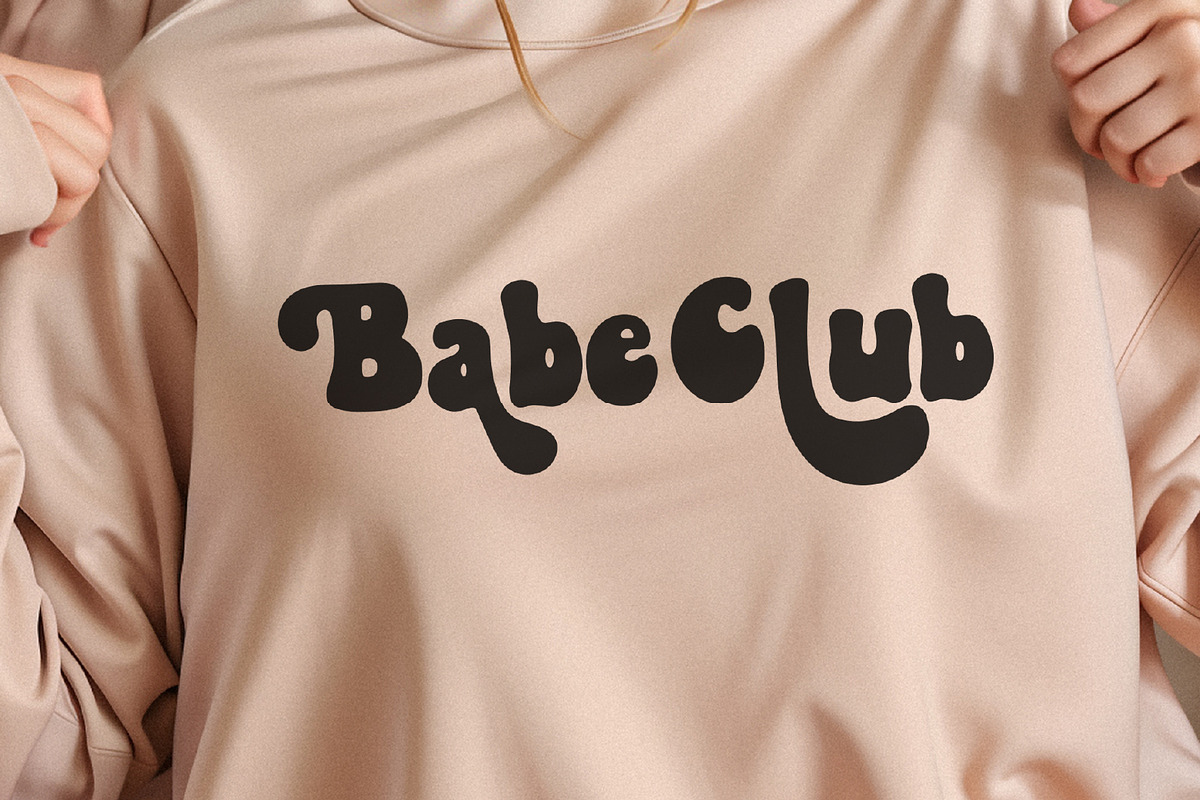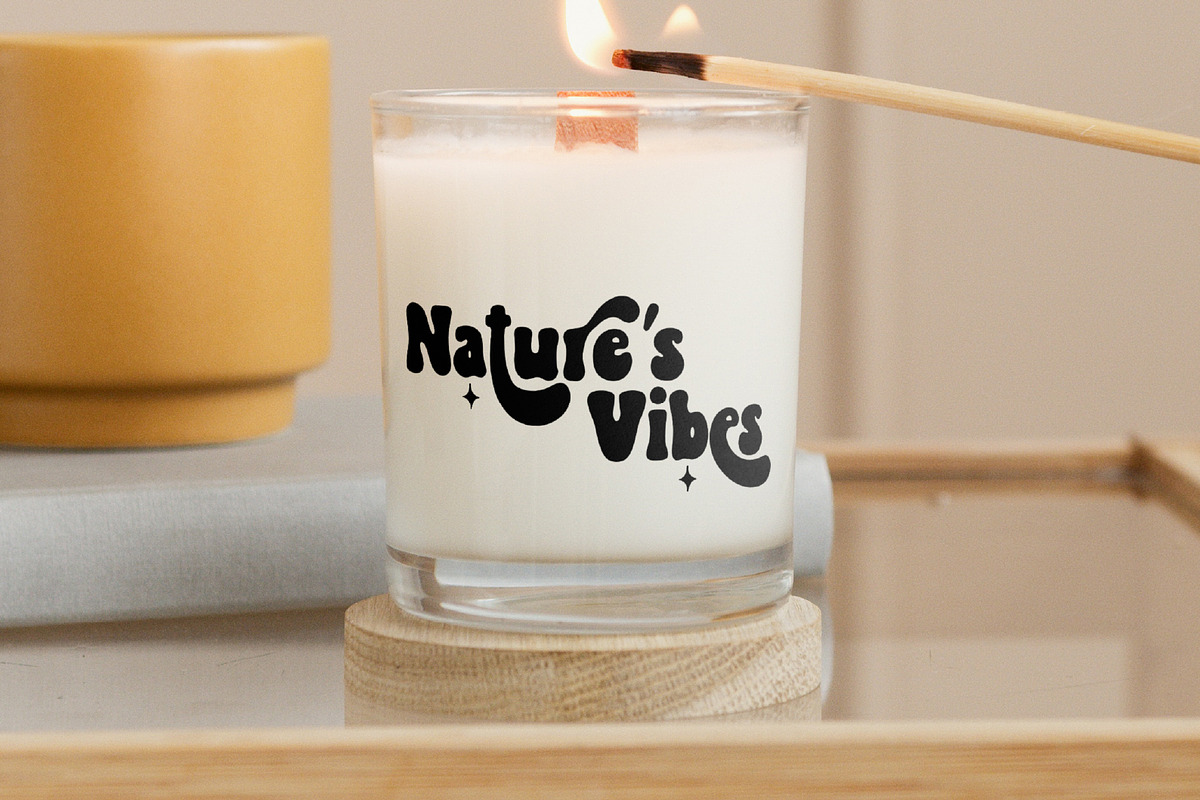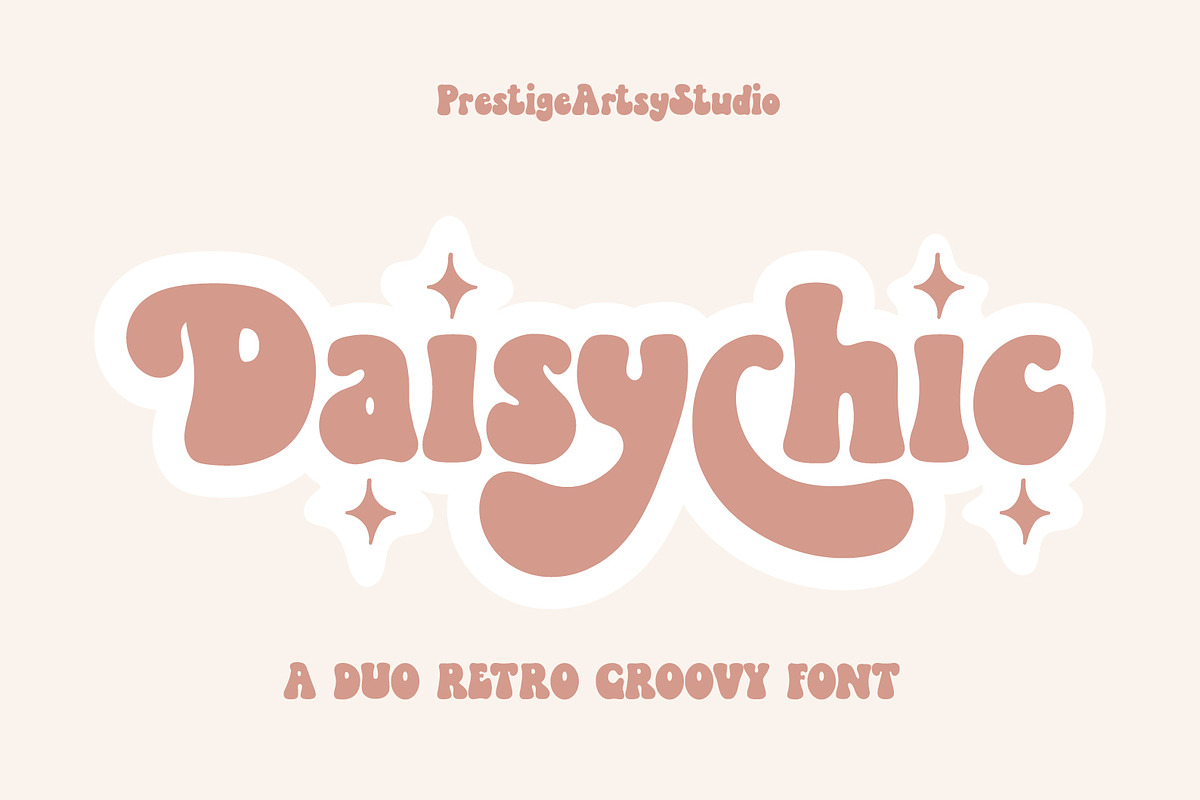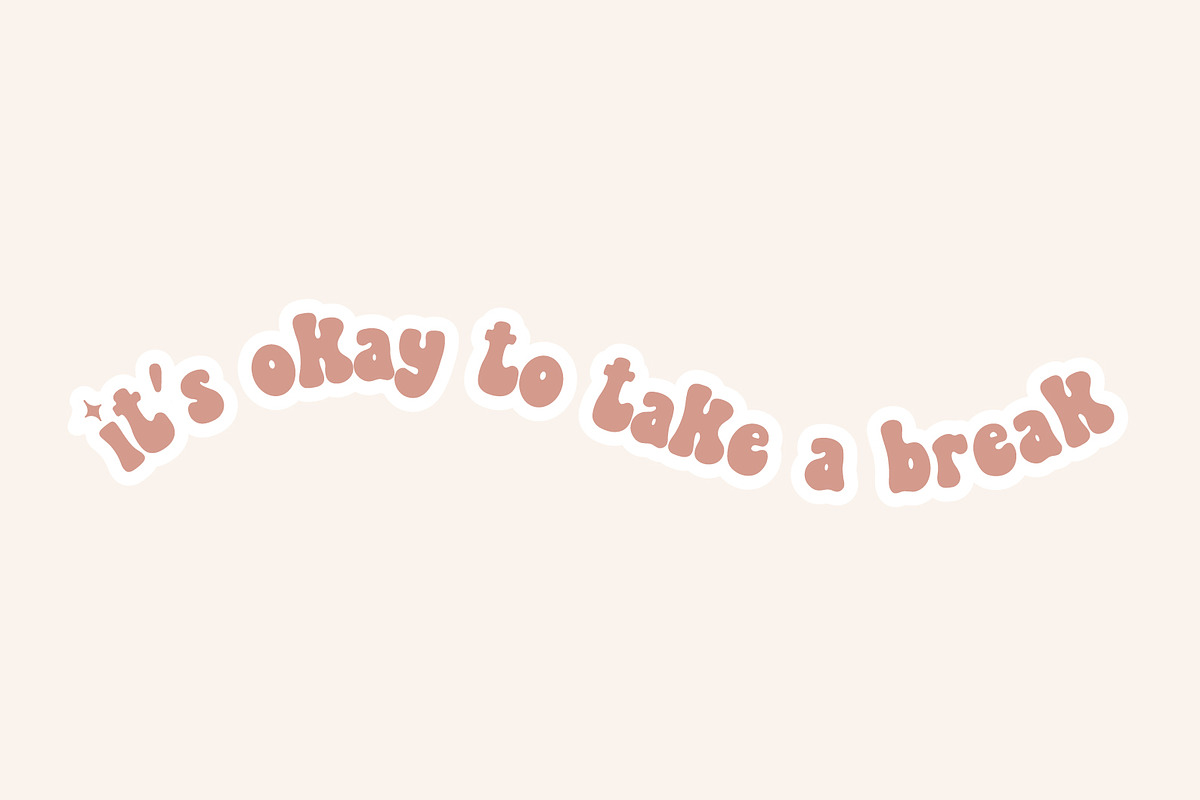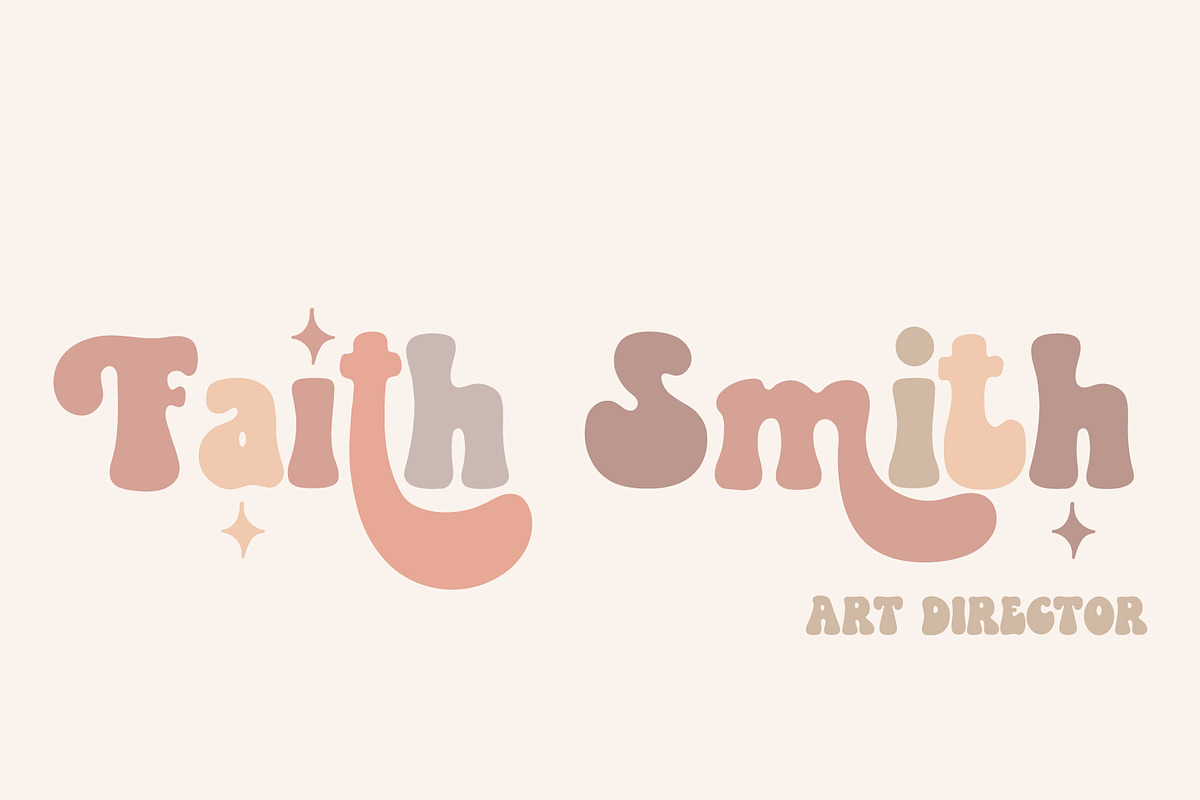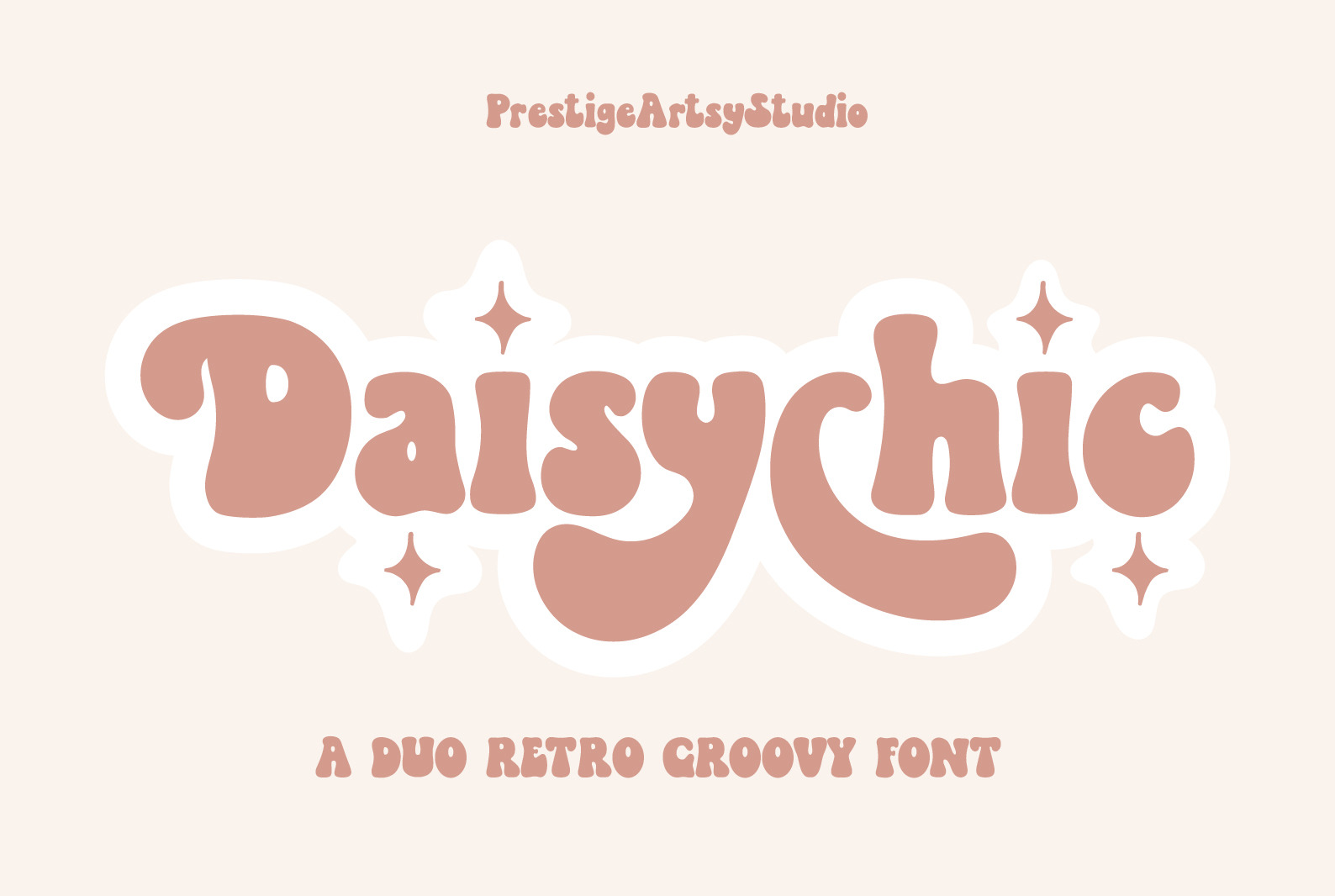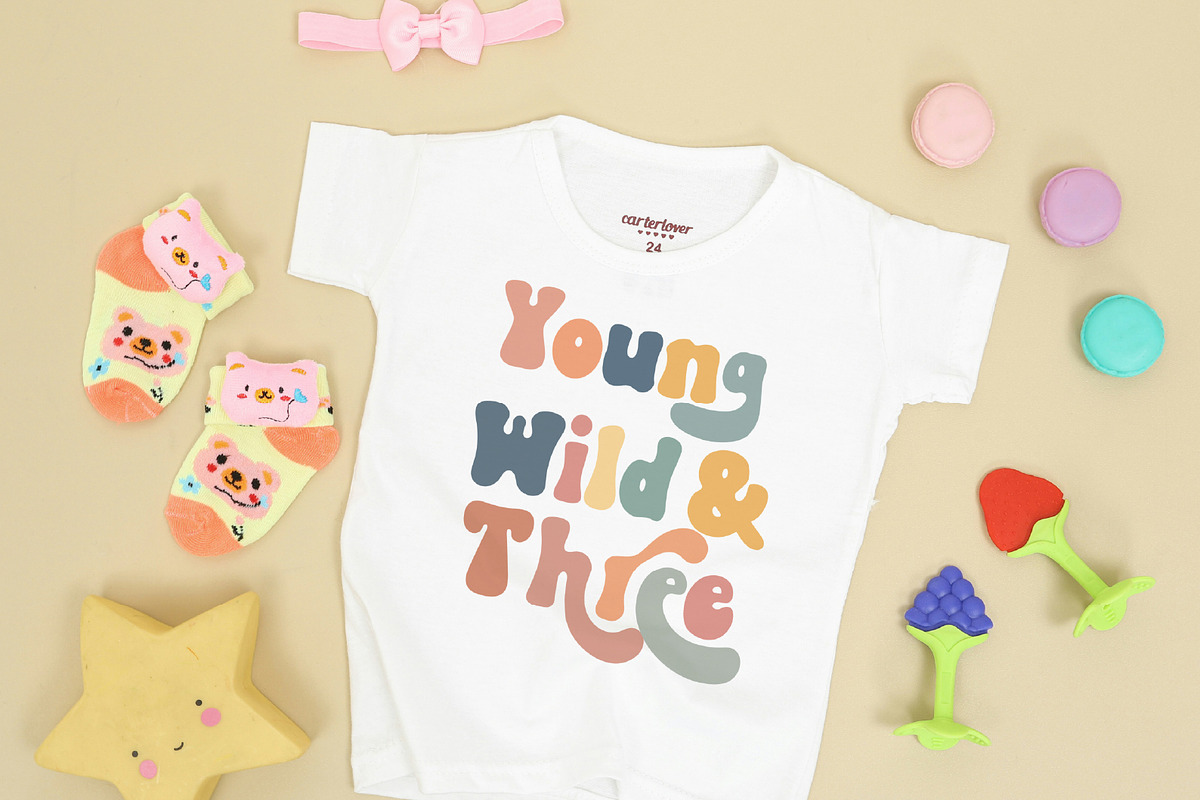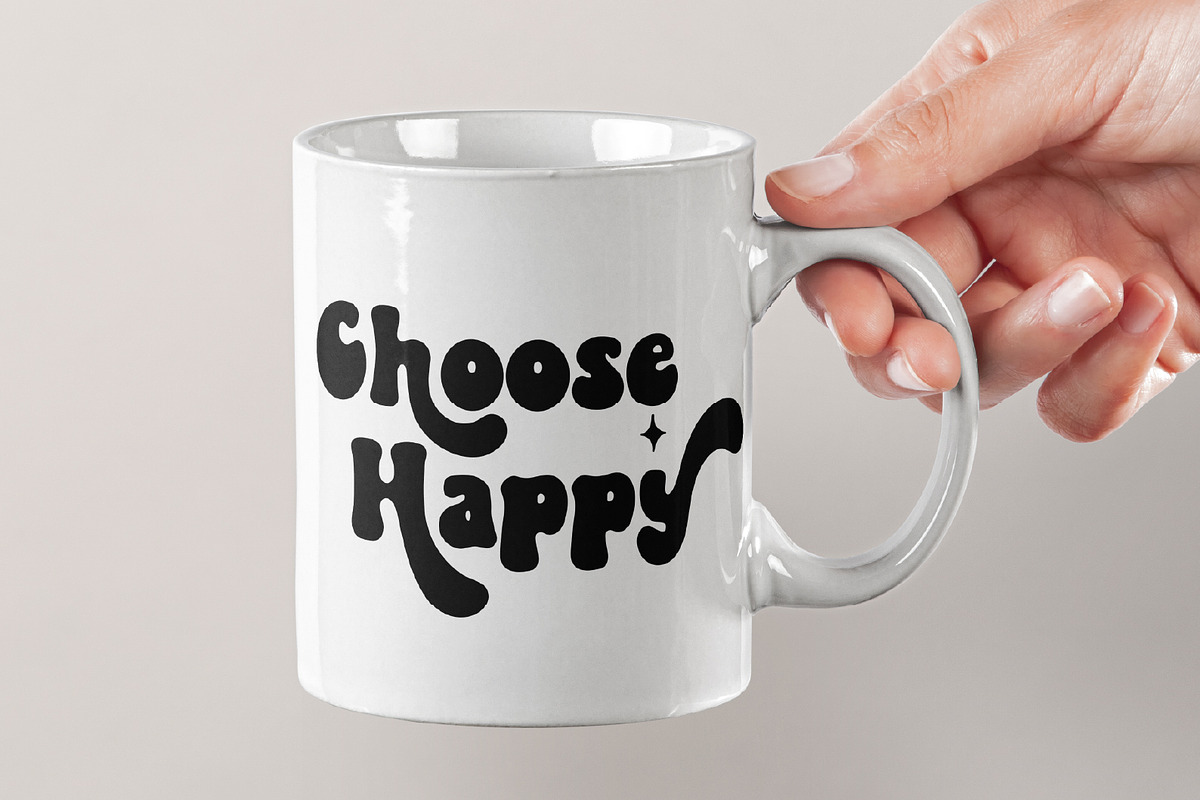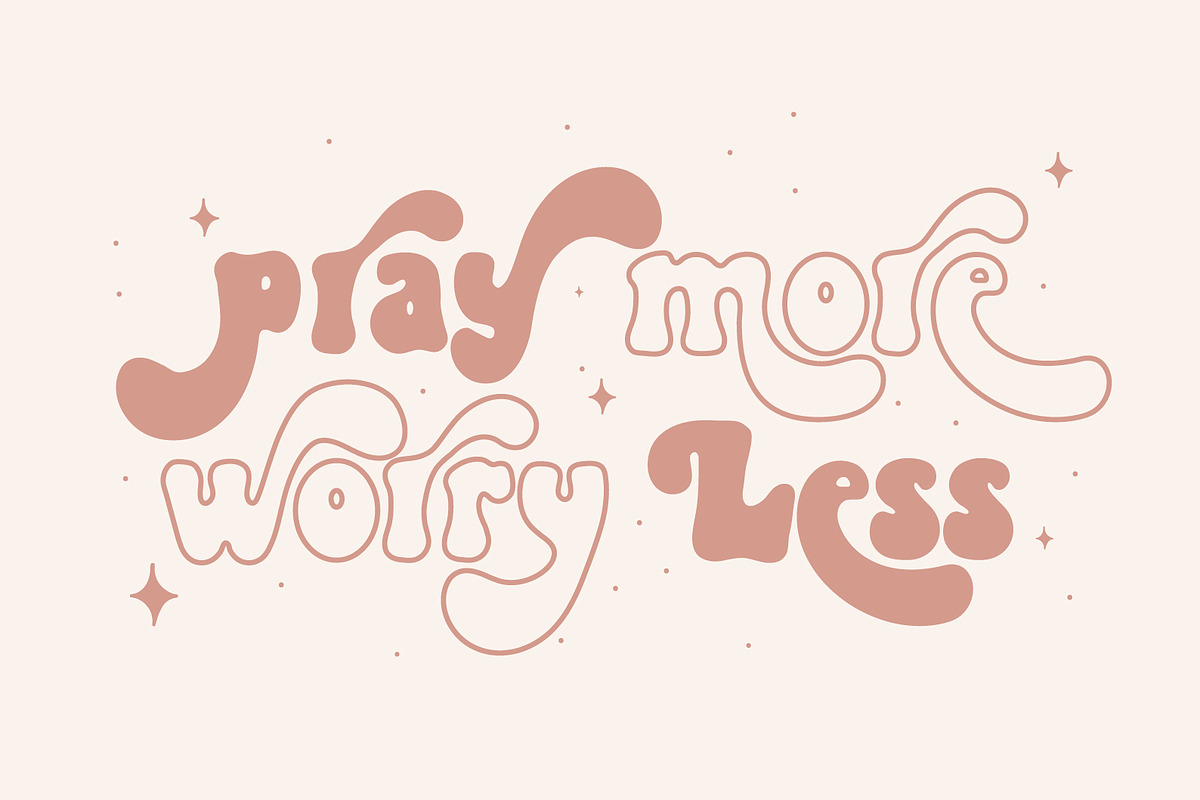
Daisy Chic A Duo Retro Groovy Font
Introducing "Daisy Chic Duo": a dynamic duo font set blending groovy script with outlined version, capturing the essence of 70s nostalgia with a modern twist. Perfect for vibrant headlines, posters, and branding projects, this font duo brings a playful energy and retro charm to any creative endeavor.